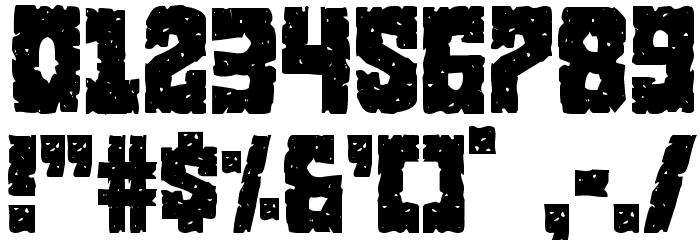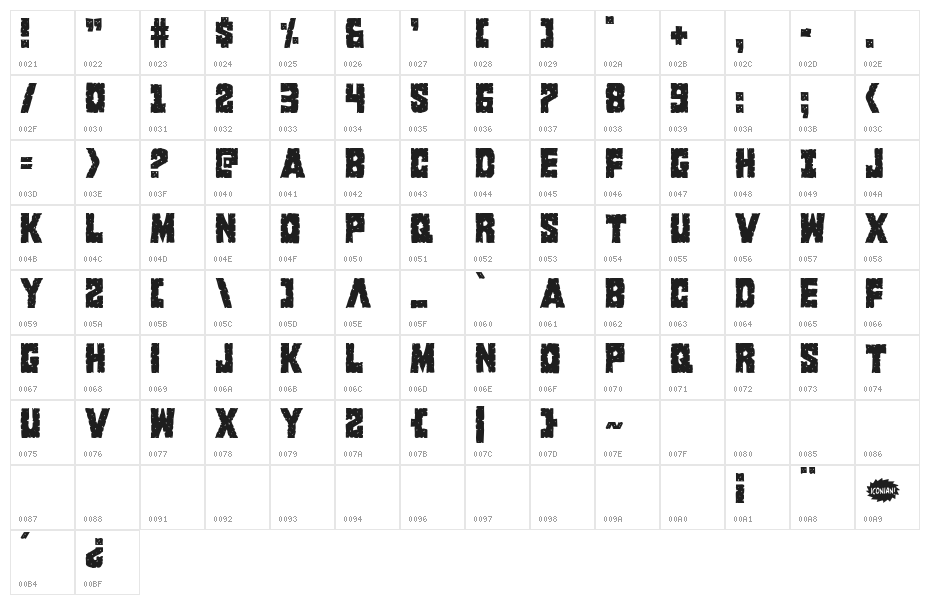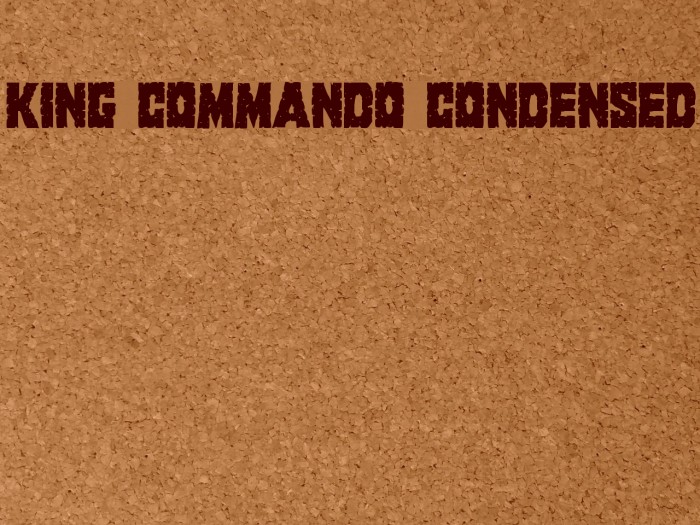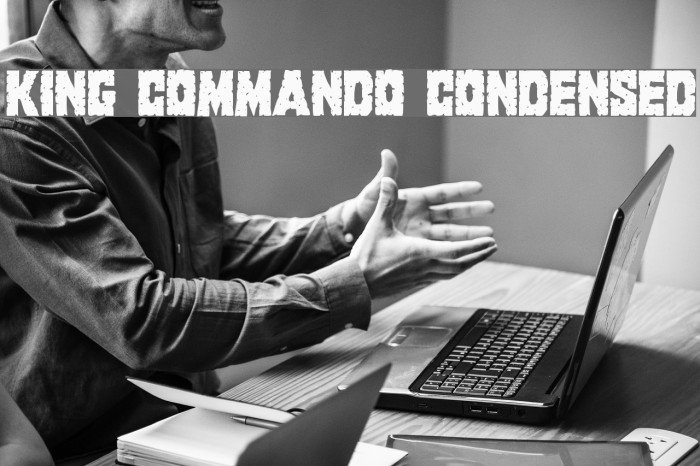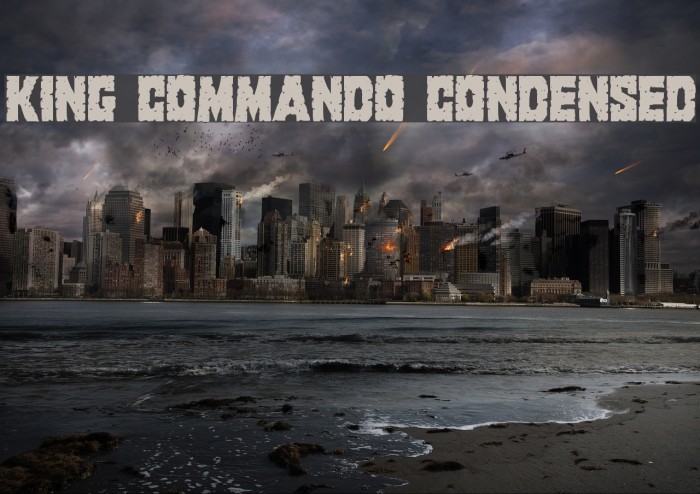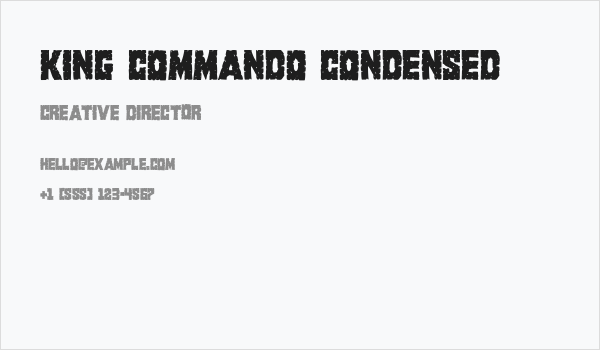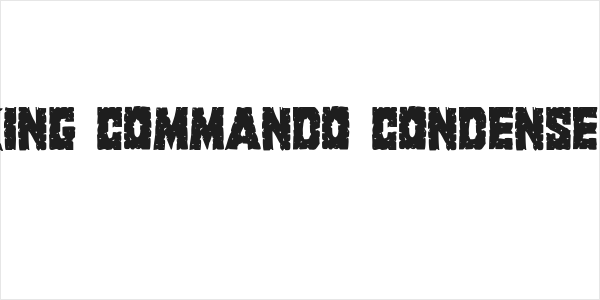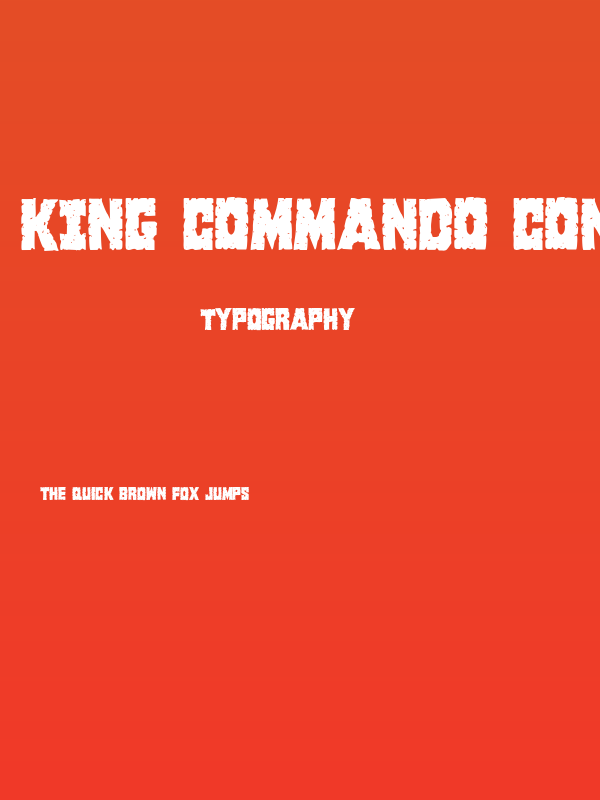
King Commando Condensed Font
King Commando Condensed Description
This font features a bold, rugged design with a distressed texture that gives it a gritty, military-inspired appearance. The characters are condensed, creating a compact look that is both powerful and impactful. The uppercase and lowercase letters maintain a consistent style, with sharp edges and a blocky structure. The numbers and special characters follow the same aesthetic, ensuring uniformity across all elements. This font is ideal for projects that require a strong, commanding presence, such as posters, banners, and branding materials that aim to convey strength and resilience.